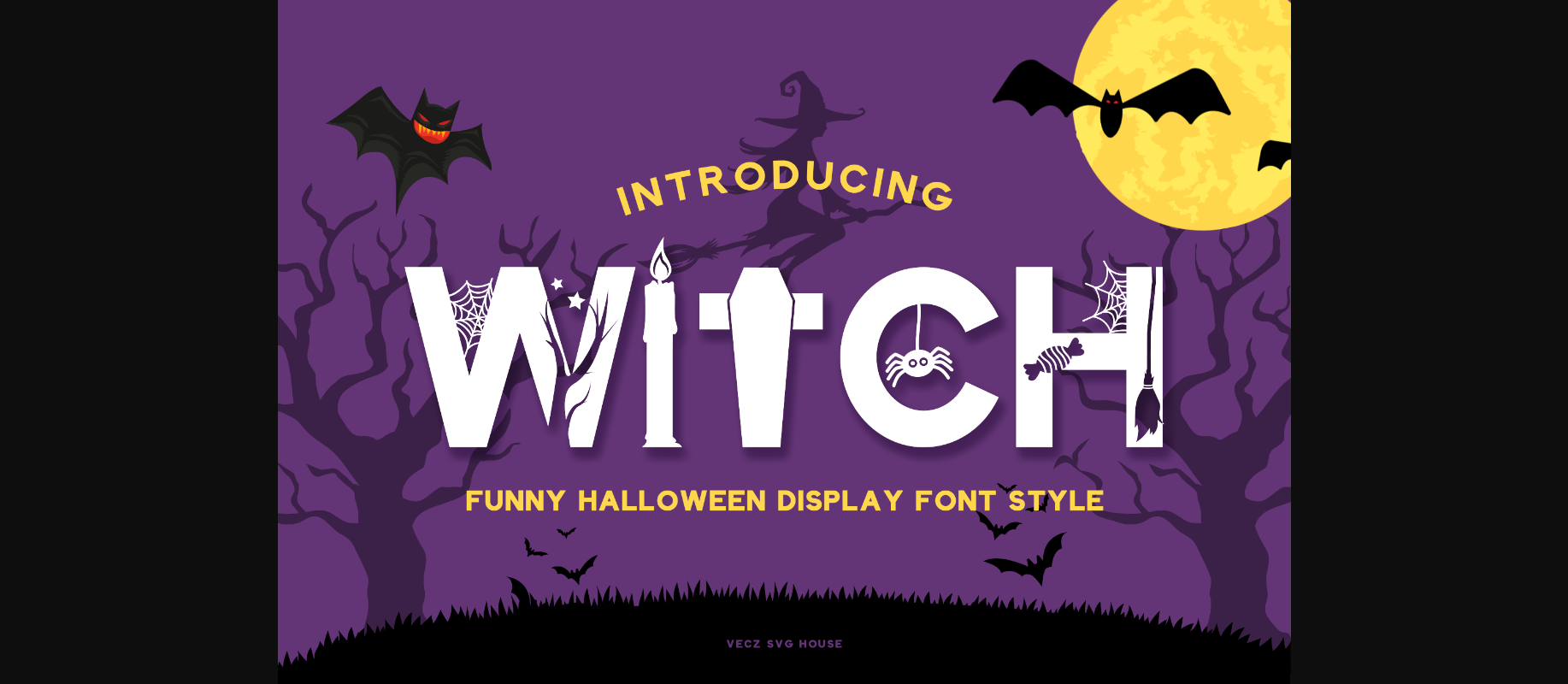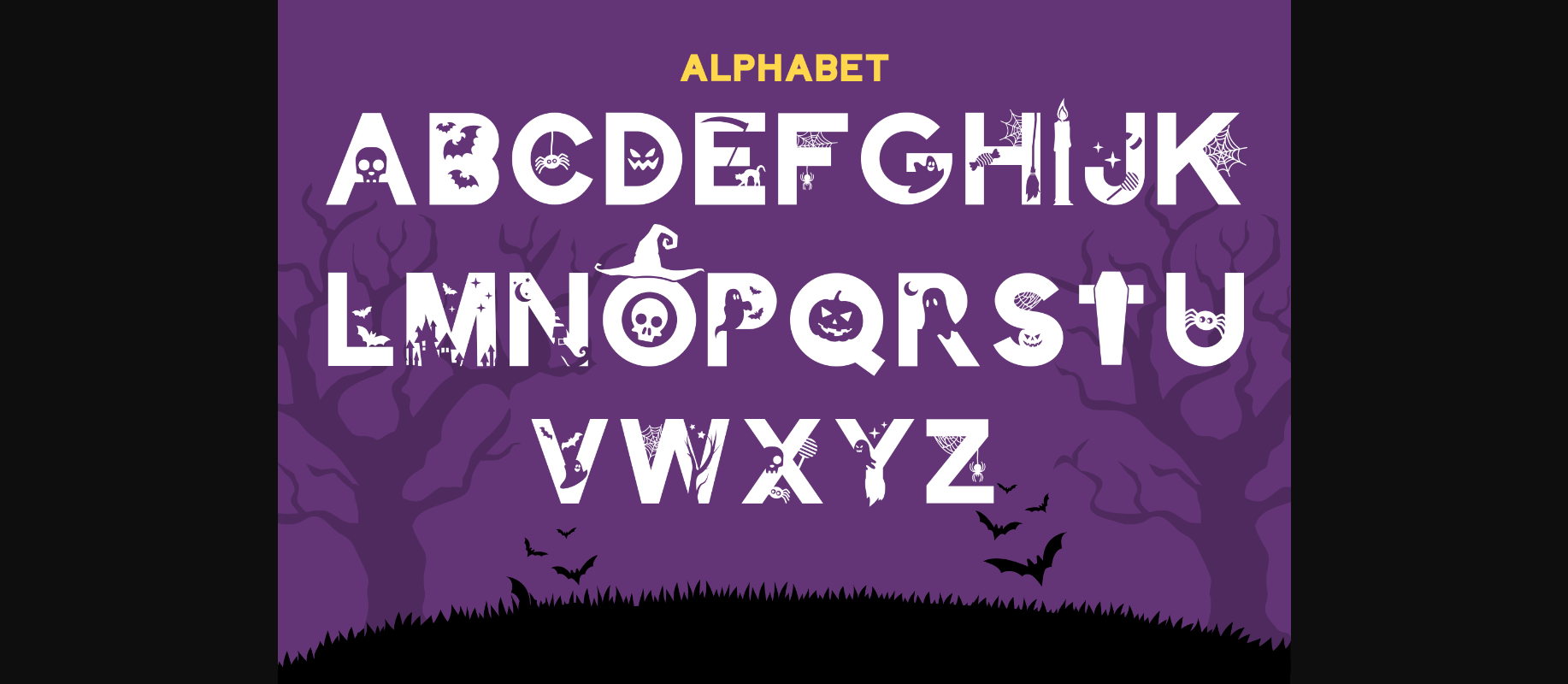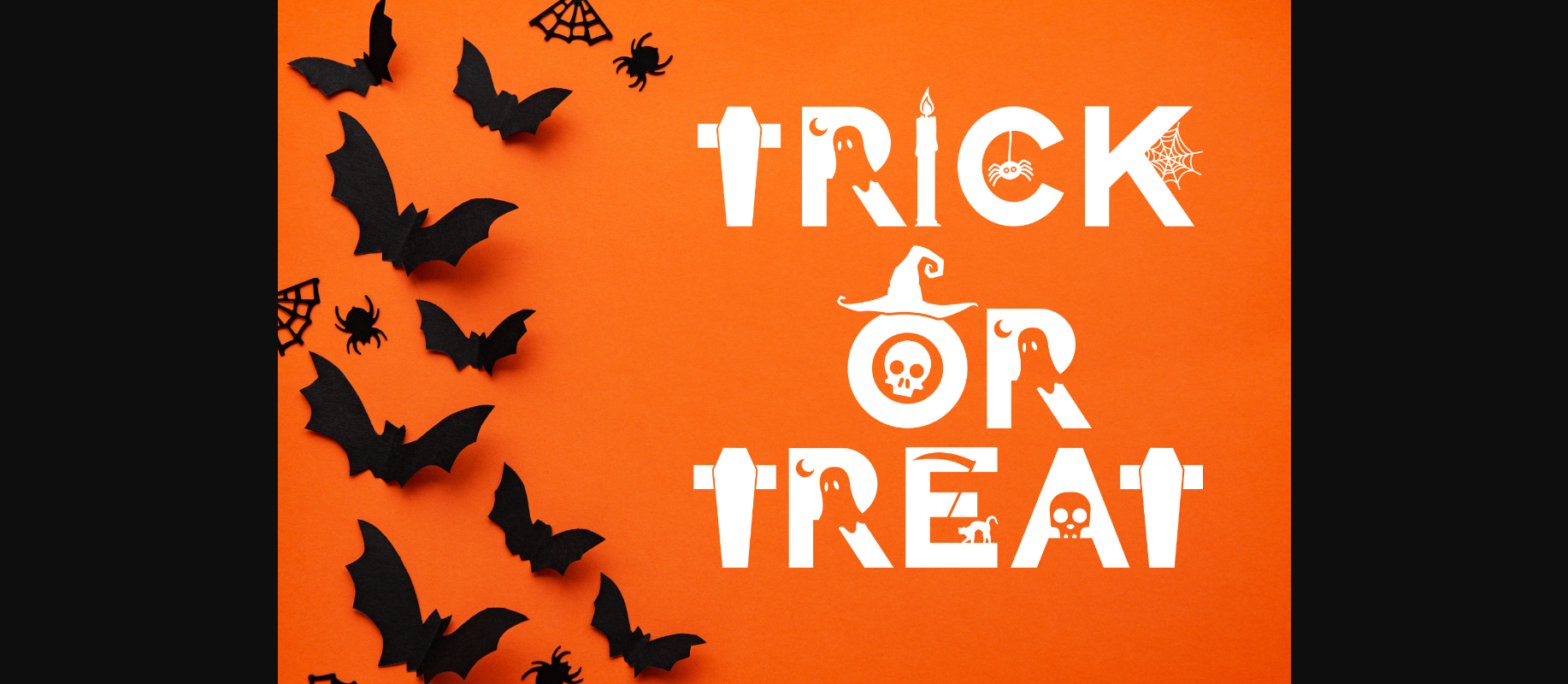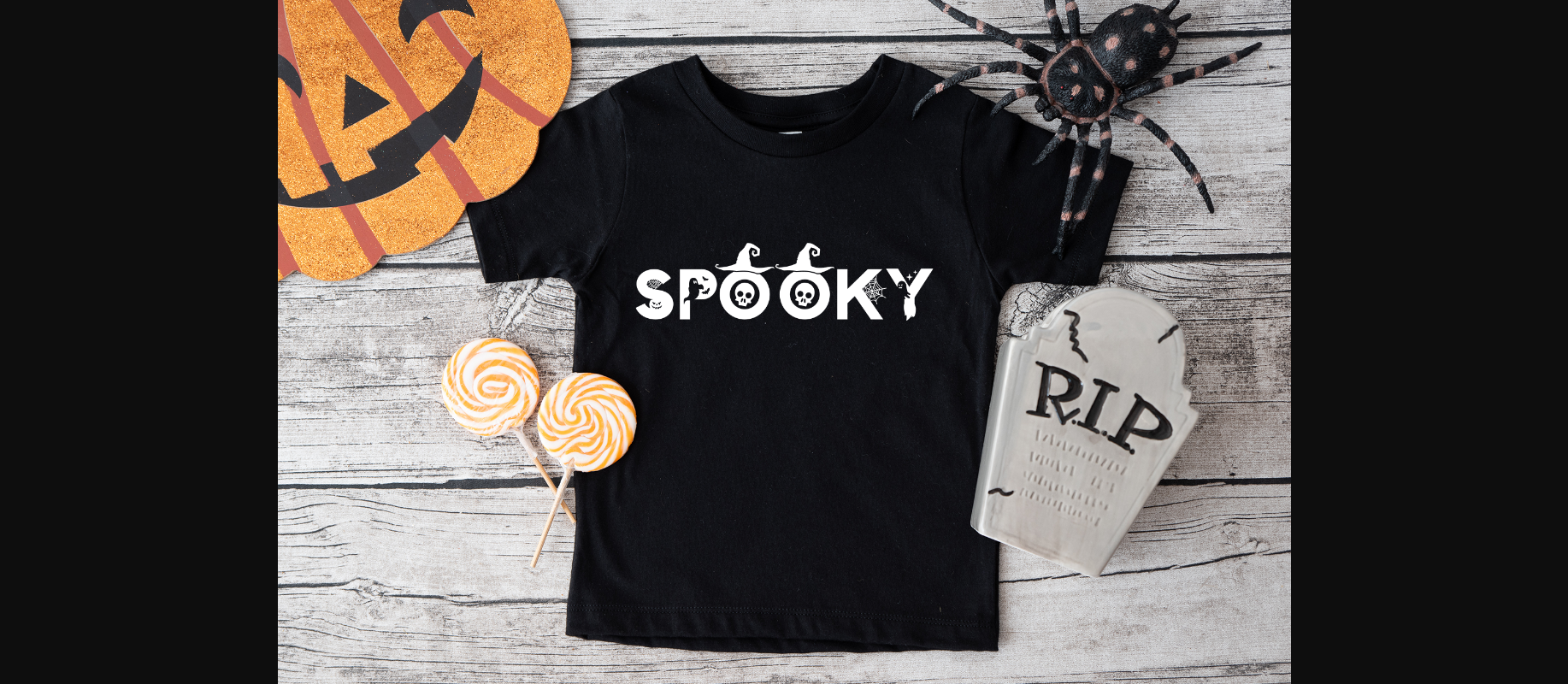
About Halloween Witch Font
The “Halloween Witch” Display Font, a spellbinding typeface that will cast a captivating spell on your design projects. This bewitching font is perfect for all your Halloween-themed creations, from party invitations and posters to spooky signage and haunted house flyers.
This font boasts whimsical witch hat and broomstick accents adorning select characters. These playful elements add a touch of whimsy and thematic consistency to your text, making it ideal for Halloween-themed projects.
The Halloween Witch” font evokes an atmospheric aura, transporting viewers to a world of enchantment and sorcery. Its unique and captivating style adds a distinctive touch to any design project.
Get ready to create spellbinding Halloween designs that will leave a lasting impression with the Halloween Witch Display Font. Embrace the mystique of witches, spells, and the supernatural, and let your creativity soar this Halloween season. Unleash the enchantment and bring your designs to life with this captivating typeface.
This font boasts whimsical witch hat and broomstick accents adorning select characters. These playful elements add a touch of whimsy and thematic consistency to your text, making it ideal for Halloween-themed projects.
The Halloween Witch” font evokes an atmospheric aura, transporting viewers to a world of enchantment and sorcery. Its unique and captivating style adds a distinctive touch to any design project.
Get ready to create spellbinding Halloween designs that will leave a lasting impression with the Halloween Witch Display Font. Embrace the mystique of witches, spells, and the supernatural, and let your creativity soar this Halloween season. Unleash the enchantment and bring your designs to life with this captivating typeface.